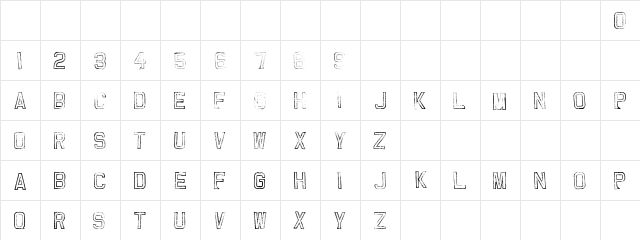
SBC The 40s Font Preview
Design Context for SBC The 40s Typeface
SBC The 40s is a composed and adaptable typeface that performs quietly and consistently across a wide range of design contexts.